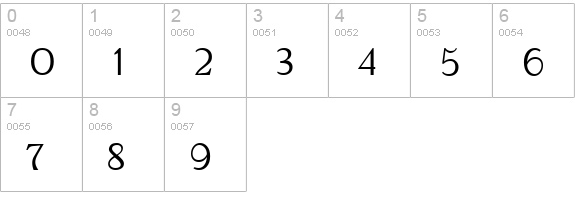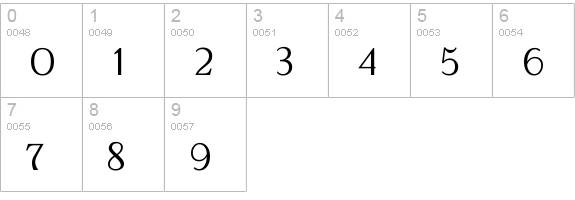
QualetteeMedium Font Details
Introducing QualetteeMedium, a sleek and modern font that exudes sophistication and style. This versatile typeface is perfect for a wide range of creative projects, from branding and logo design to editorial layouts and social media graphics. With its clean lines and balanced letterforms, QualetteeMedium commands attention while maintaining an air of elegance. Its medium weight strikes the perfect balance between boldness and subtlety, making it ideal for titles, headers, and other prominent elements. One of the most remarkable features of QualetteeMedium is that it is freely available to download at FontsMarket.com. This means that you can enhance your designs with this exceptional font without breaking the bank. Whether you're a professional designer or a passionate hobbyist, QualetteeMedium offers you the opportunity to elevate your work to new heights, all at no cost. The legibility of QualetteeMedium is exceptional, making it easy to read even at smaller sizes. This ensures that your message is delivered clearly and effectively, regardless of the medium or platform. Its timeless design also guarantees that it will remain relevant for years to come, giving your projects a timeless appeal. QualetteeMedium has a wide range of characters, including uppercase and lowercase letters, numerals, punctuation marks, and special symbols. This extensive character set allows you to fully express your creativity and tailor your designs to suit your unique vision. So why wait? Download QualetteeMedium today from FontsMarket.com and explore the endless possibilities it offers. Whether you're designing a logo for a prestigious brand or creating eye-catching social media posts, QualetteeMedium is the perfect choice to add a touch of class and sophistication to your work. Best of all, it won't cost you a penny. Don't miss out on this incredible opportunity to elevate your designs with QualetteeMedium, the free font that delivers professional results.